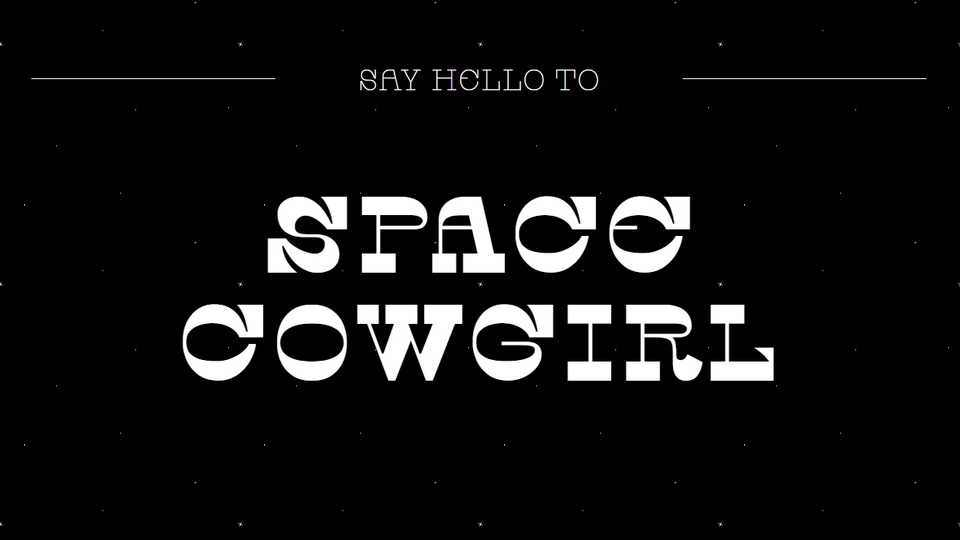
Download Space Cowgirl typeface, a quirky reverse contrast display font family in 6 weights including variable font, loosely based on George Bruce’s 1828 specimen of Italian type, but with a contemporary twist.